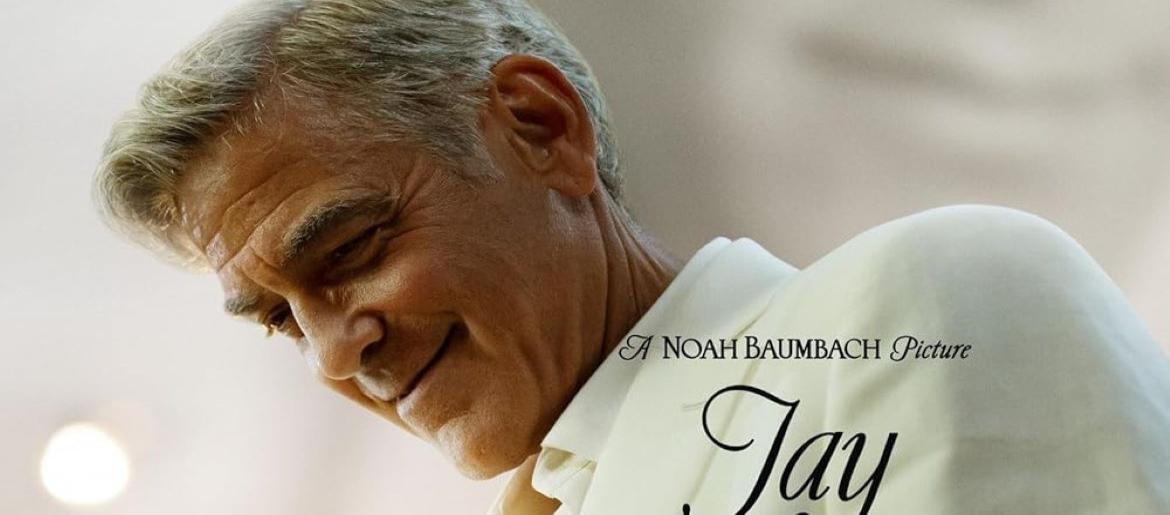
Jay Kelly Font
The Jay Kelly Font is a modern and bold typeface that stands out with its sleek, clean lines and balanced design. While the exact font is unavailable, several free and premium alternatives capture its contemporary, polished look. Its subtle creative details make it feel unique, professional, and versatile for a wide range of design projects.
About Jay Kelly
The Jay Kelly Font combines readability with a fresh, contemporary style, making it ideal for logos, magazine covers, branding, and digital art. Its smooth curves and well-spaced letterforms ensure clarity while maintaining visual interest, allowing your designs to make an impact without overwhelming the content. Inspired by the movie Jay Kelly, the font mirrors themes of ambition, resilience, and self-discovery, offering a bold yet approachable aesthetic that works for both professional and creative projects. This versatile typeface alternative lets designers create striking visuals that remain timeless and stylish.